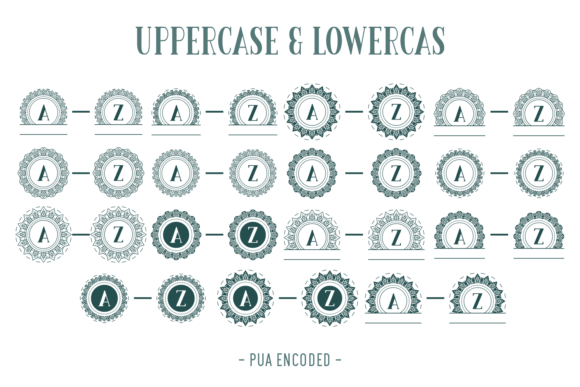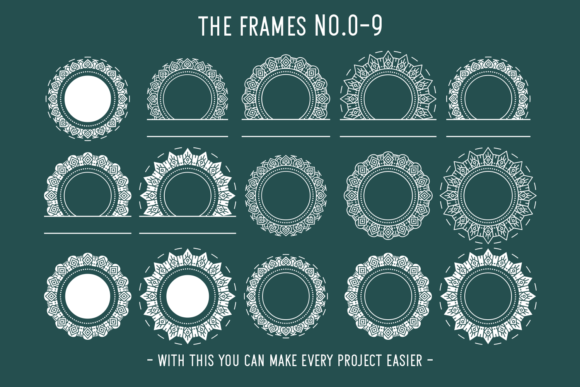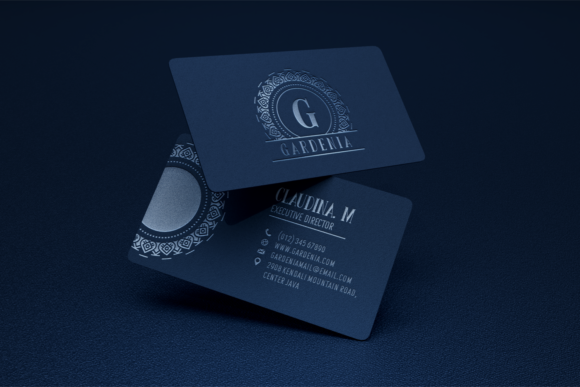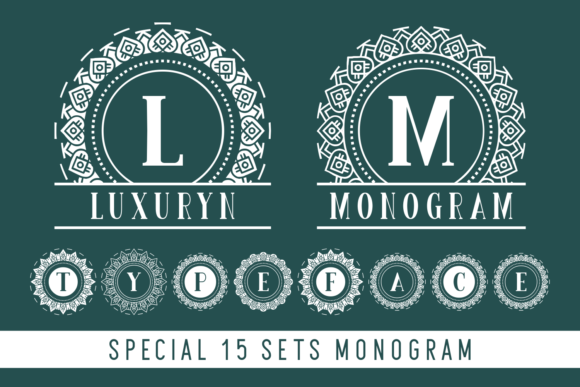
Introduction to Luxuryn Font
Luxuryn is an elegant and highly detailed decorative font.
Add this romantic and lovely looking font to each of your love letters, wedding invitations or favorite design ideas, and you will be astounded by the outcome .
Luxuryn Font offers exceptional quality and versatility, making it a valuable addition to your design toolkit. Whether you’re creating for personal projects or commercial use, Luxuryn Font delivers professional results.